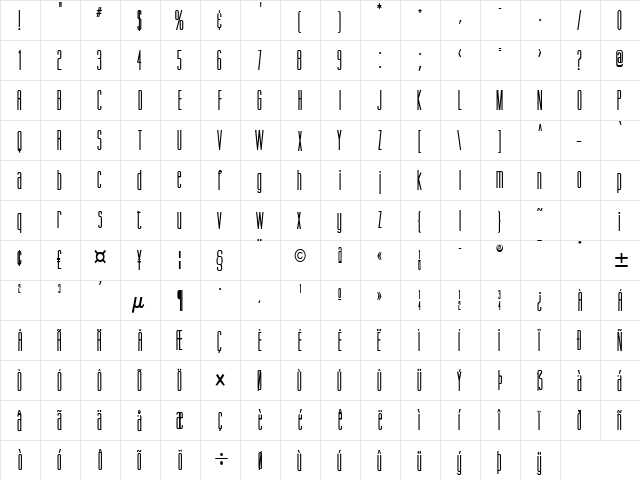
Gorgio-Condensed Bold
Design Context for Gorgio-Condensed Typeface
Gorgio-Condensed takes a measured approach to typography — its balanced proportions and neutral character make it a reliable workhorse for both digital and print work. Its bold stroke weight gives it real presence on the page. The condensed width makes it efficient for tight spaces without sacrificing legibility.